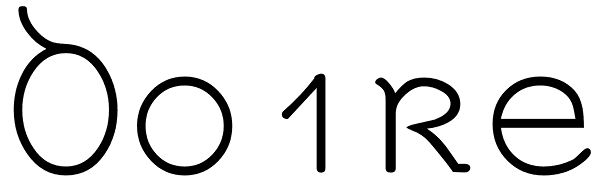
Doire
Doire is a rectified monowidth font based on the face used on the old Royal Gaelic manual typewriter. Doire was first digitized in 1993 by Michael Everson and originally used the MacGaelic character set on the Macintosh platform, and ISO/IEC 8859-14...